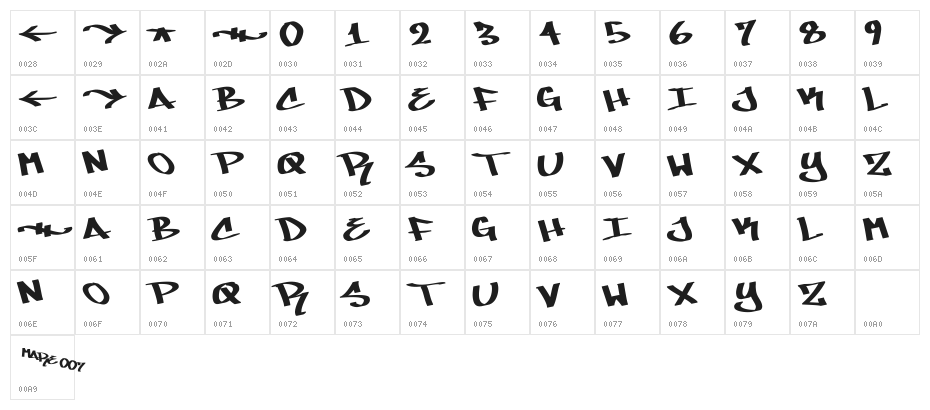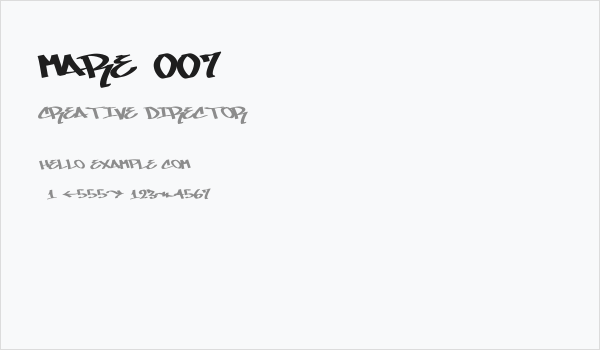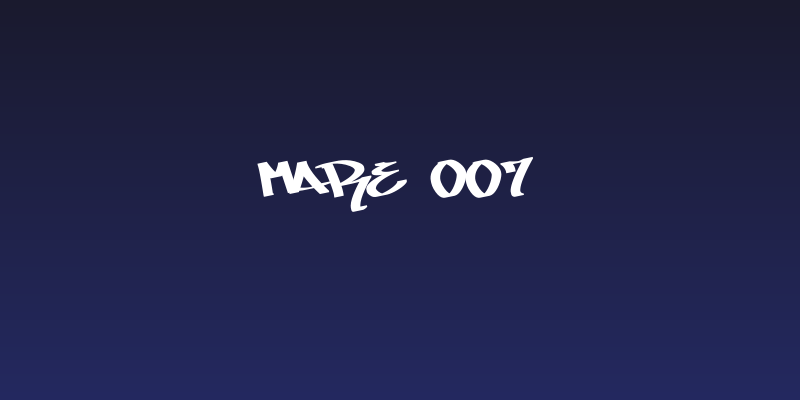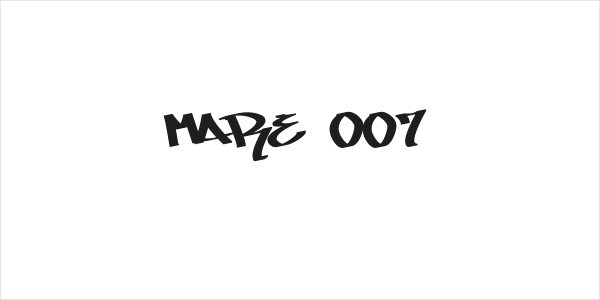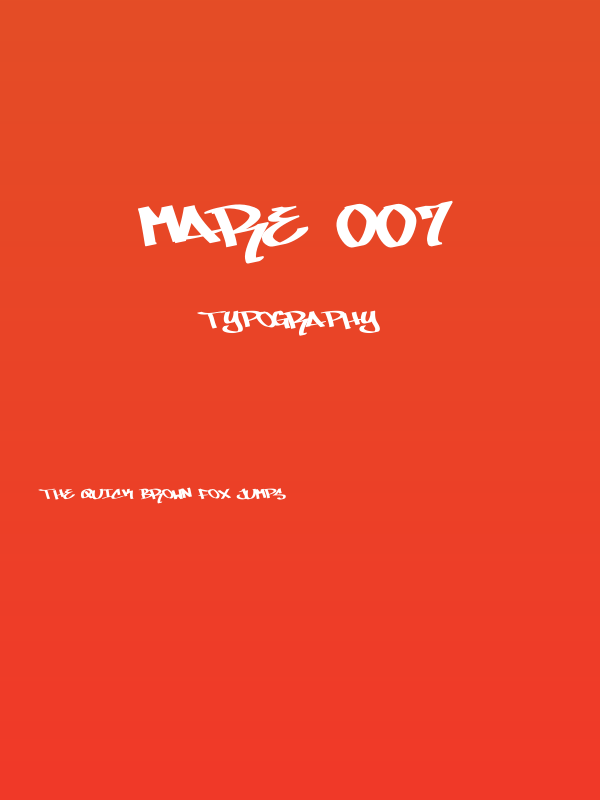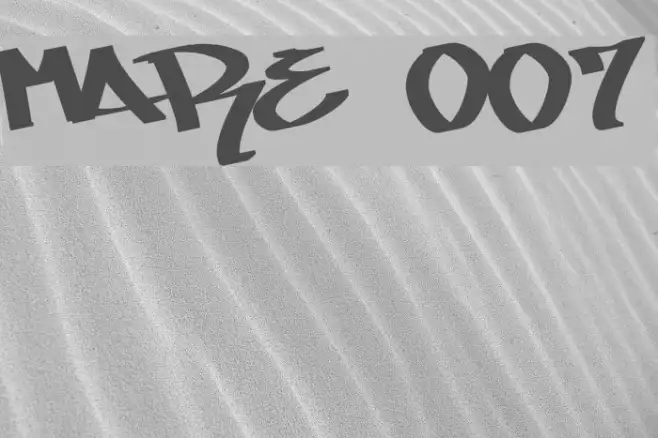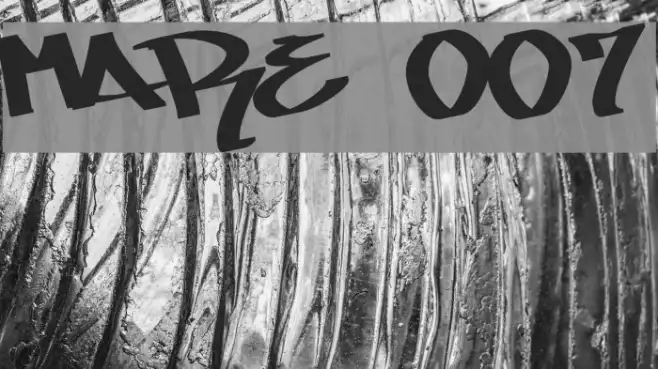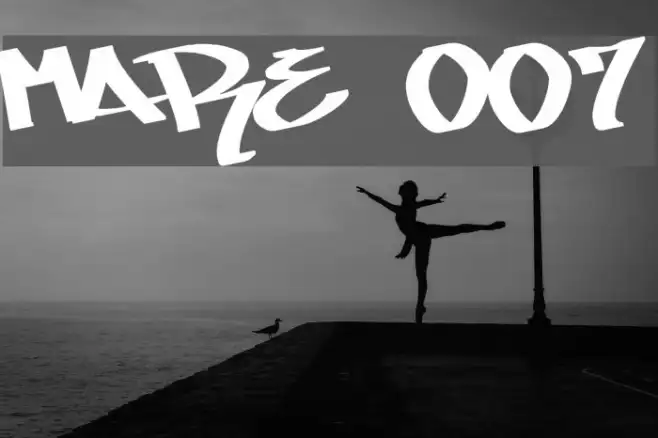
MARE 007 Font
MARE 007 Description
This font exhibits a bold, graffiti-inspired style with dynamic, angular strokes and a sense of movement. The uppercase and lowercase letters are characterized by sharp edges and a slightly slanted orientation, giving the text an energetic and rebellious feel. The numbers follow the same aesthetic, maintaining consistency across the character set. Special characters are creatively integrated, adding to the font's urban and edgy appeal. The overall design is highly decorative, making it suitable for projects that require a strong visual impact.
| Overall Style | Urban, Edgy, Graffiti |
| Use Case | Logos, Posters, Album Covers |
| Proposed Projects | Ideal for street art designs, music album covers, urban-themed posters, and edgy branding projects. |